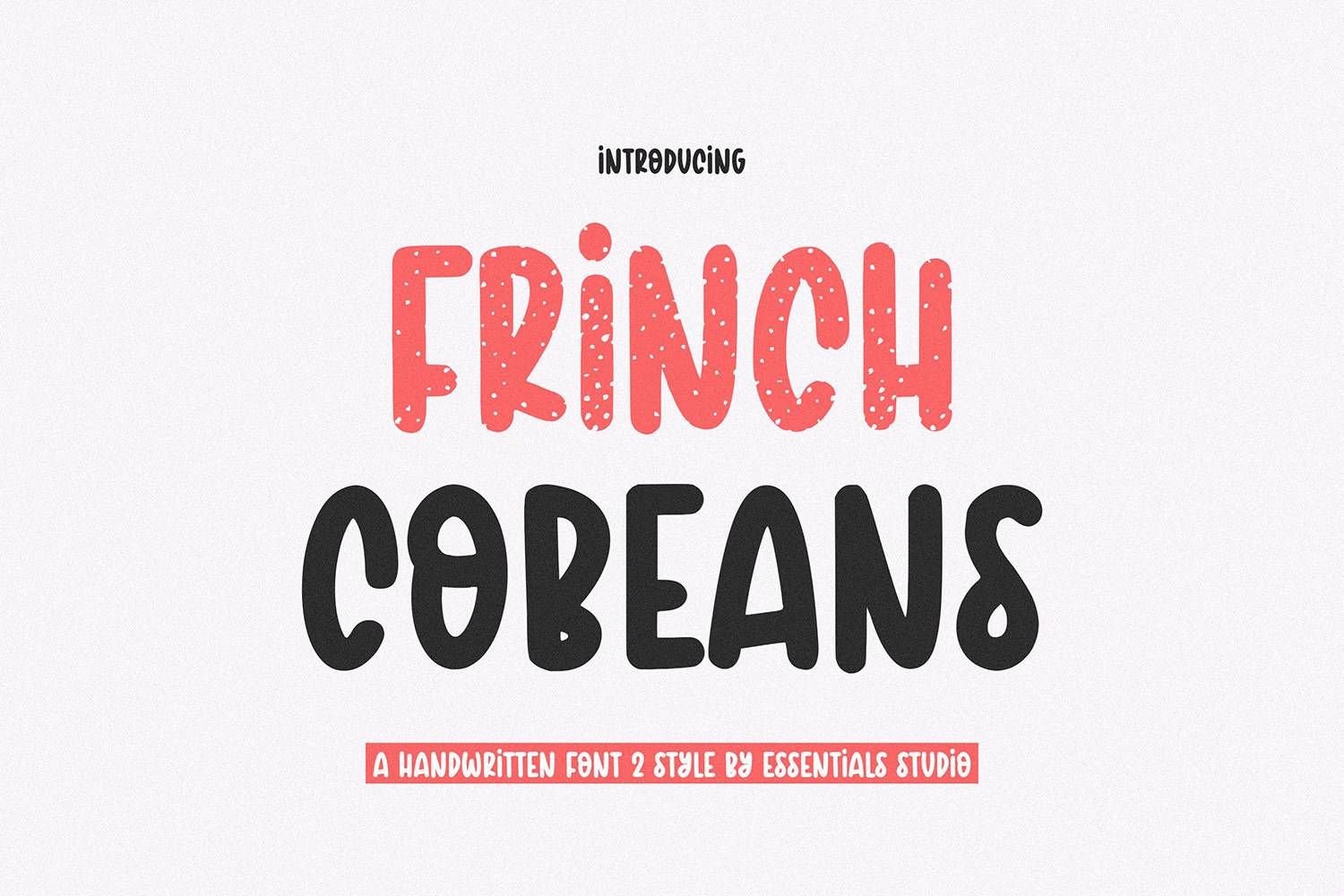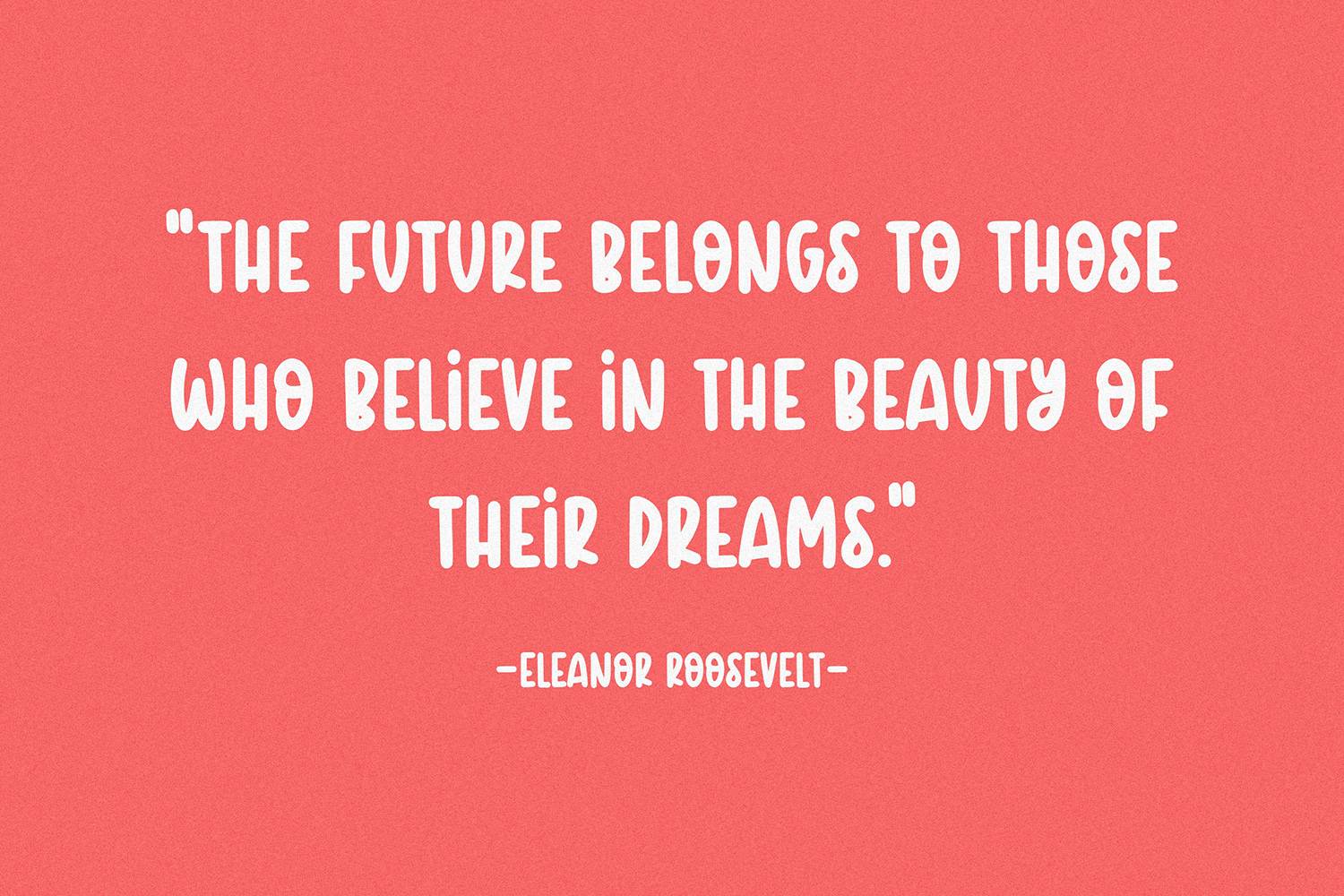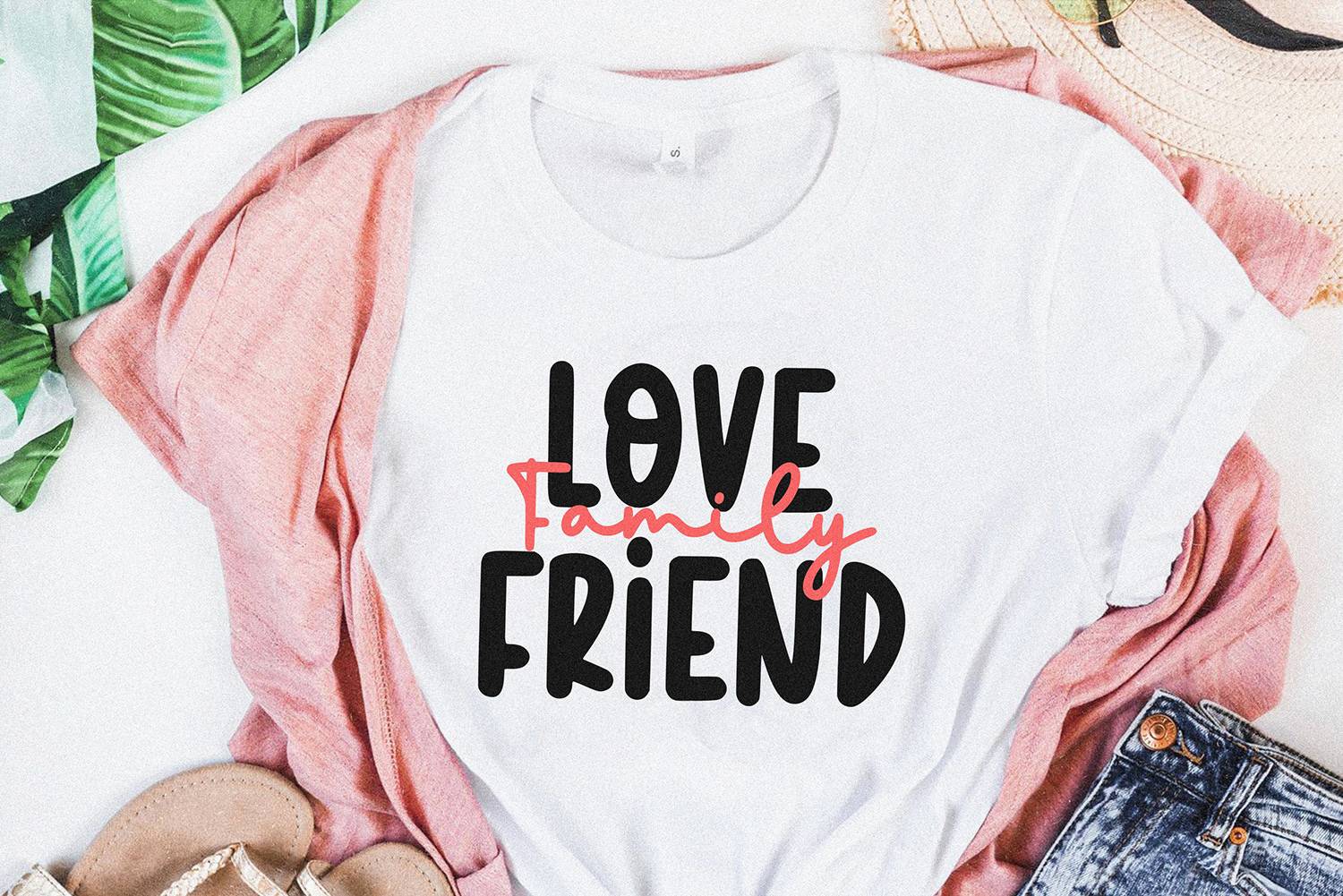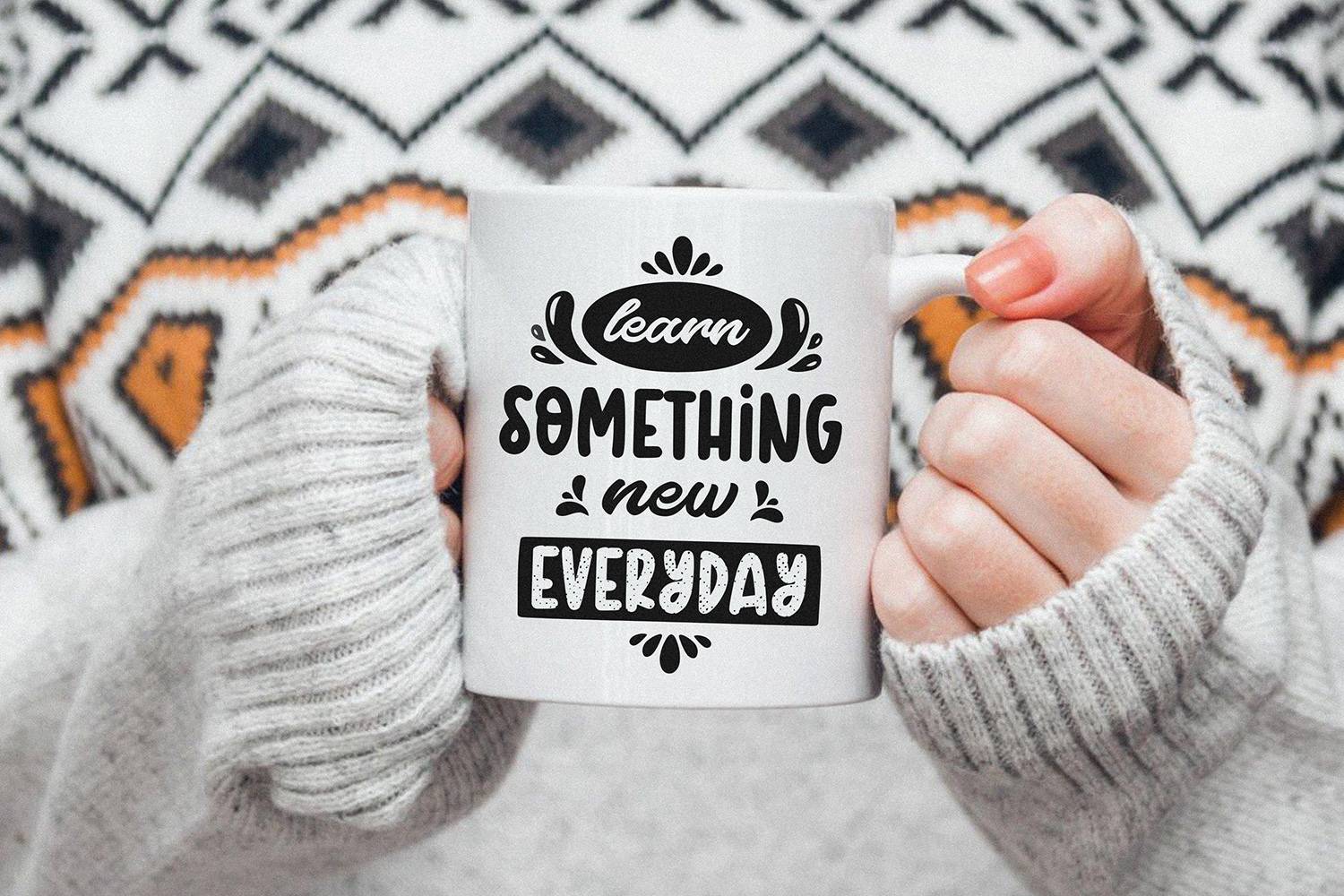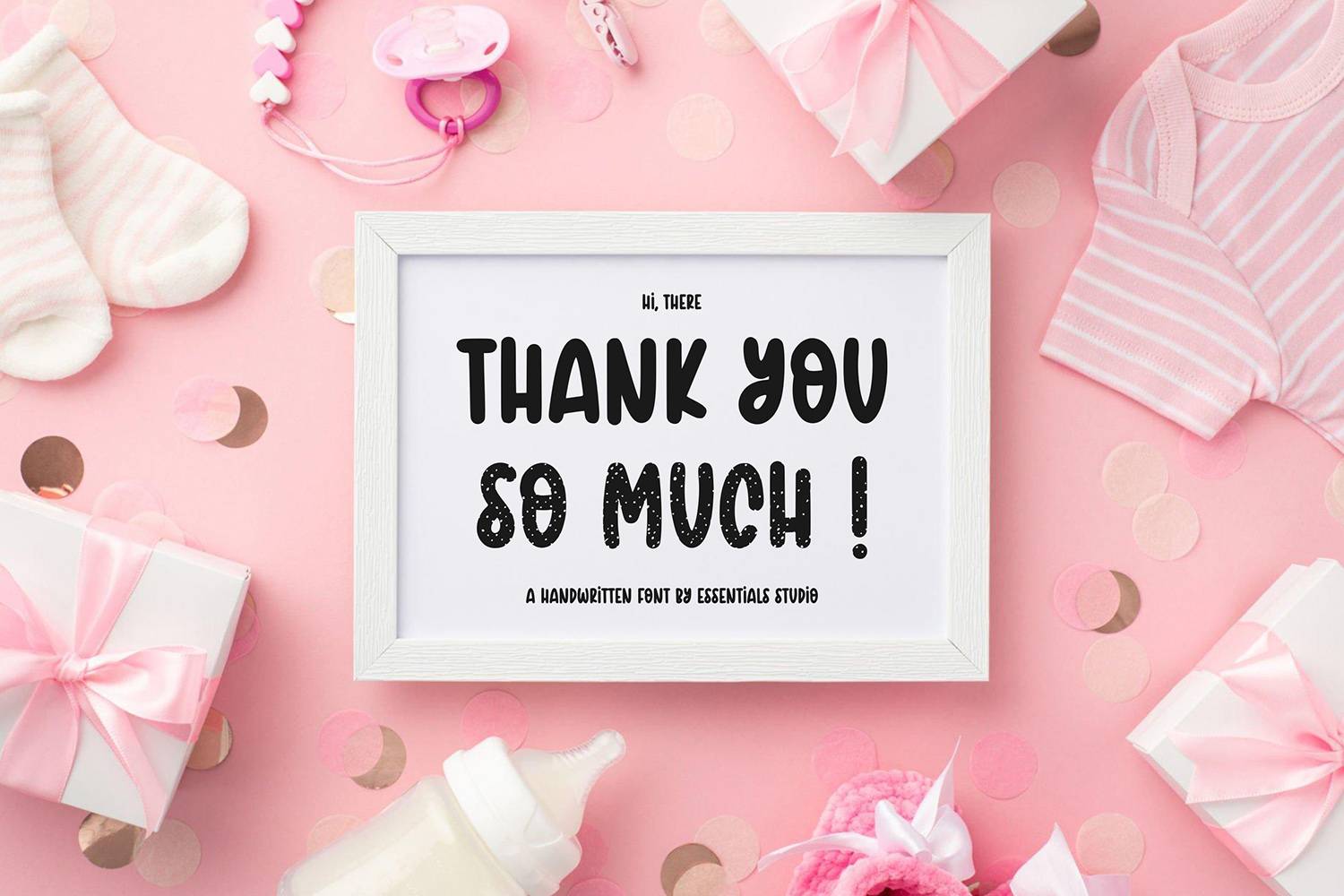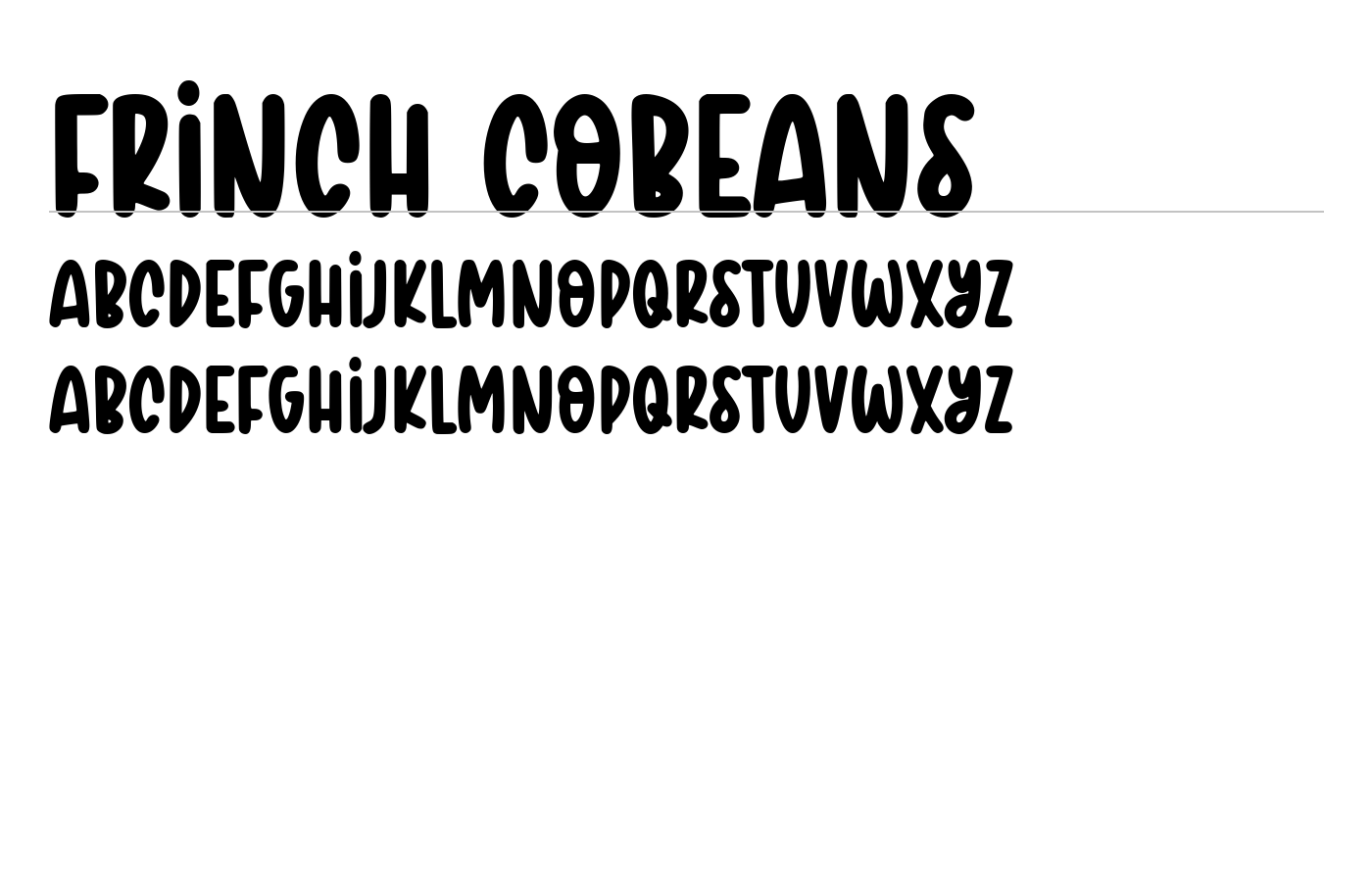
Frinch Cobeans is a playful, rounded sans serif font with a bold and slightly condensed style that gives it a friendly, informal feel. Its unique letterforms, such as the quirky "Q" tail and the double-story "G," add character and charm, making it perfect for eye-catching headlines, casual branding, and fun packaging. This font works well where a lively, approachable personality is needed to engage audiences with warmth and creativity.
Frinch Cobeans Font
About Frinch Cobeans Font
| Font family | Frinch Cobeans Font |
| Designer | Annas Rifky Anhar |